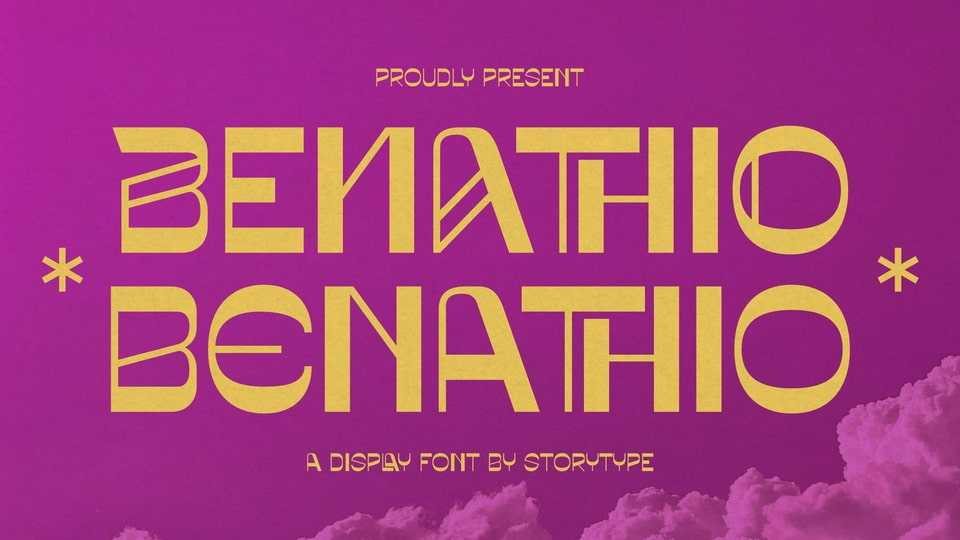
Download Benathio font, a reverse contrast display typeface that has own unique style and modern look. Benathio font is perfect for a retro and luxury logo, book or movie title design, fashion brand, magazine, clothes, lettering, quotes, and so much more.